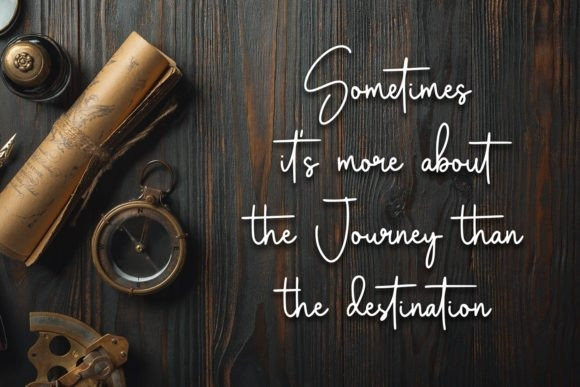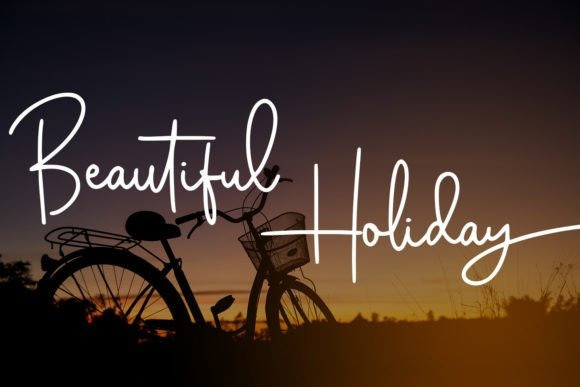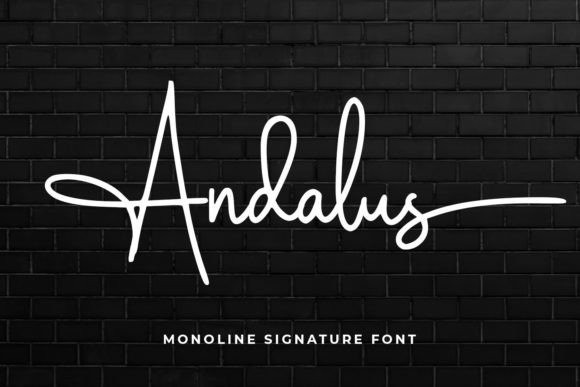
Andalus Handwriting Font
Andalus Handwriting Font It is great for branding, t-shirt designs, tote bag designs, cards, banners, social media, and more.